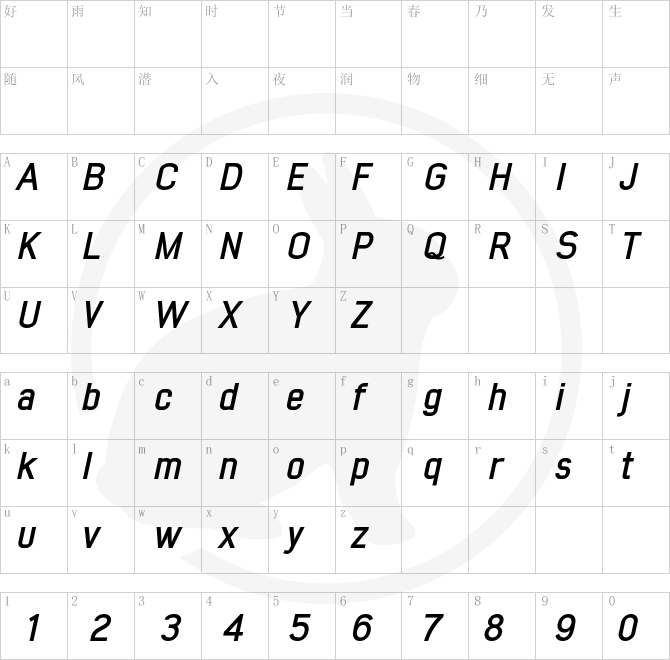
- Font Name:Early Times Bold Italic Demo
Early-Times-Bold-Italic-Demo.otf is a very beautiful artistic font, Early-Times-Bold-Italic-Demo.otf is widely used in the design and printing of various books and pictures,Early-Times-Bold-Italic-Demo.otf has a strong visual impact,Early-Times-Bold-Italic-Demo.otf is a commonly used font in newspapers, magazines and books, and is used in posters, e-commerce Poster design, store design, logo design, font design and other fields.Early-Times-Bold-Italic-Demo.